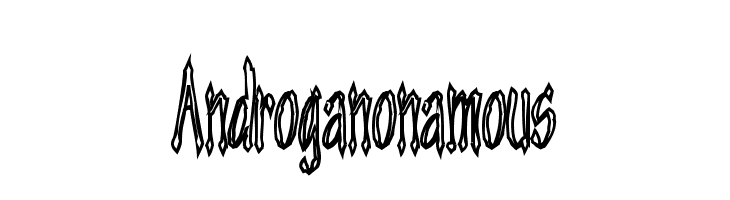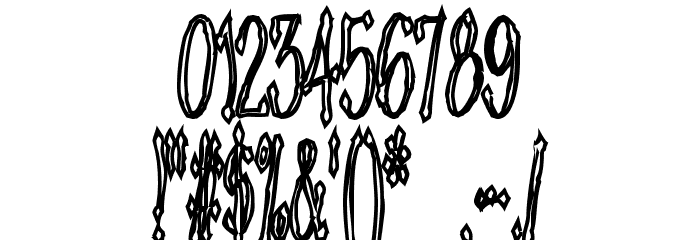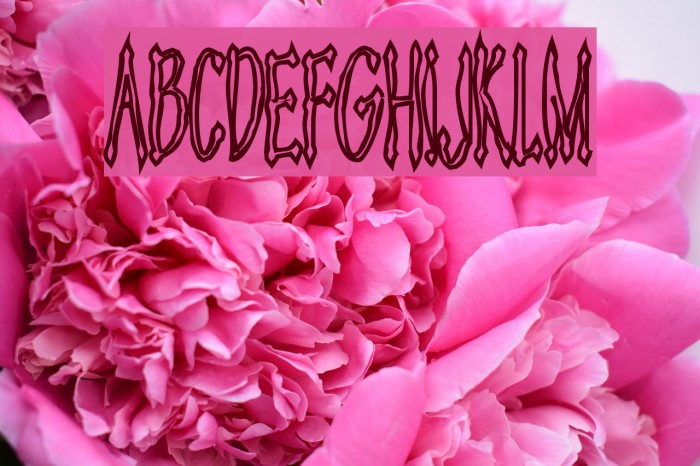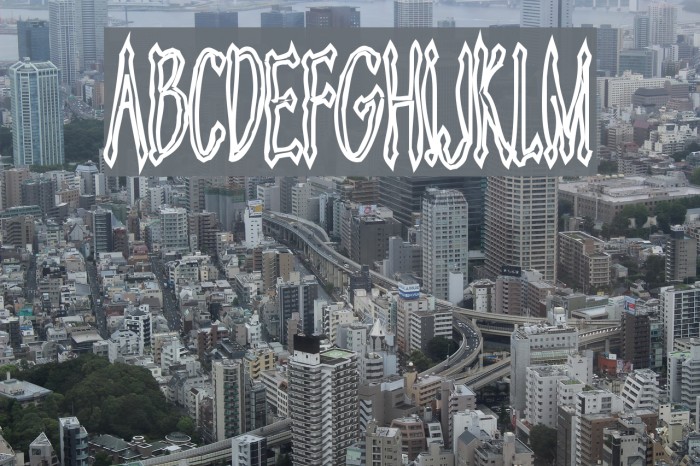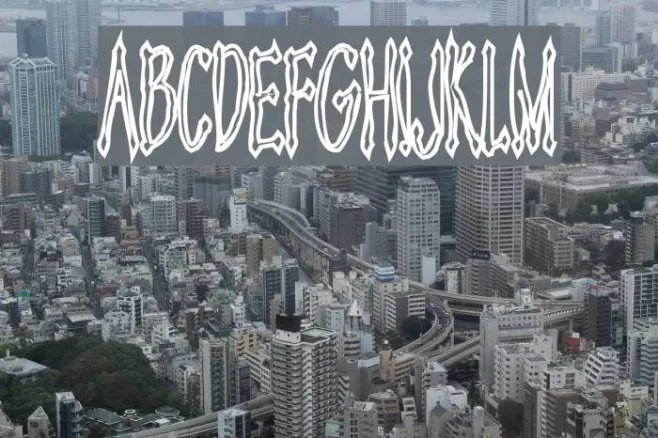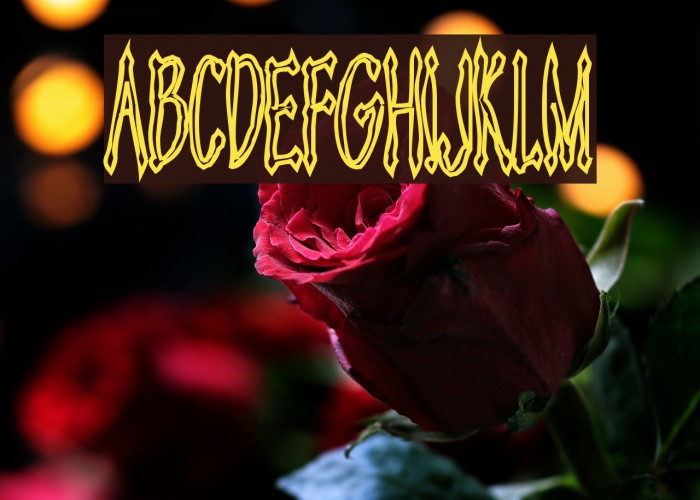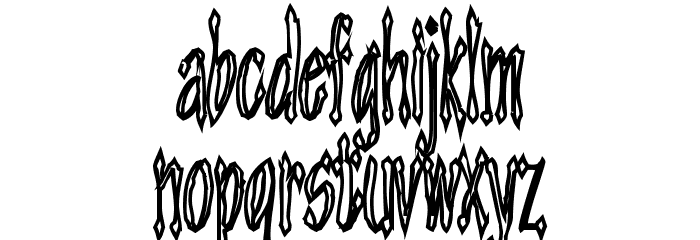
Androganonamous Font
Androganonamous Description
This font features a bold, decorative style with a unique, hand-drawn appearance. The characters are outlined with a shadow effect, giving them a three-dimensional look. The uppercase and lowercase letters maintain a consistent style, with exaggerated serifs and angular lines that create a dynamic and eye-catching effect. Numbers and special characters are designed to match the overall aesthetic, making this font suitable for creative and artistic projects. The intricate detailing and bold presence make it stand out, ideal for designs that require a strong visual impact.
| Proposed Projects | Ideal for posters, album covers, branding, and any project needing a bold, artistic touch. |